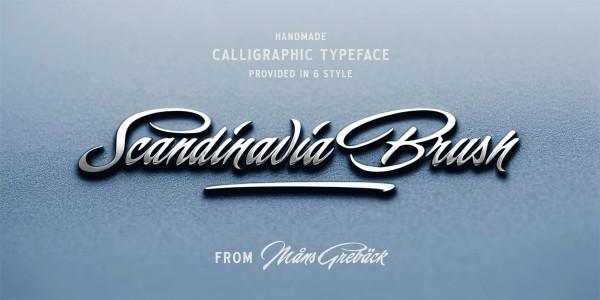
Scandinavia Brush Font
Scandinavia Brush Font, is a wild calligraphy font by Mans Greback, capturing the beautiful and rugged essence of Nordic nature.
Scandinavia Brush is a wild calligraphy font by Mans Greback, capturing the beautiful and rugged essence of Nordic nature.
Use underscores _ anywhere in a word to make an underline swash.
Example: Nord___ic Bru_sh